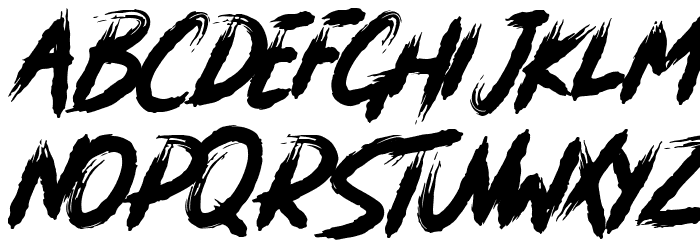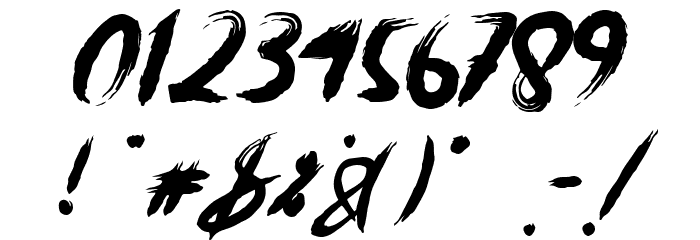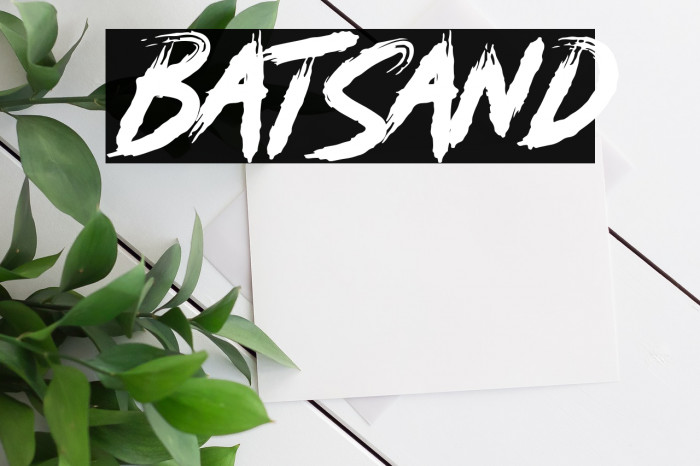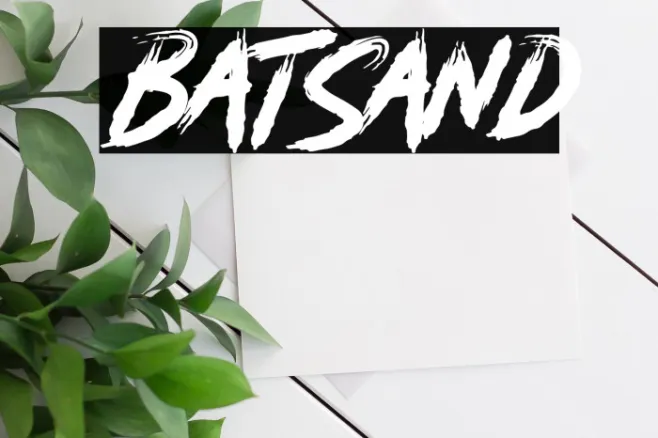
Batsand Font
This font features a bold, expressive style with a brush-like texture that gives it a dynamic and energetic appearance. The strokes are thick and irregular, creating a sense of movement and spontaneity. Each character is unique, with varying angles and curves, adding to the overall artistic flair. The uppercase and lowercase letters maintain a consistent style, while the numbers and special characters complement the set with similar boldness and creativity. This font is perfect for projects that require a strong visual impact and a touch of artistic expression.
A bold, brush-style font with dynamic and expressive strokes.
- Proposed Projects: Ideal for posters, album covers, branding, and any project needing a bold artistic touch.